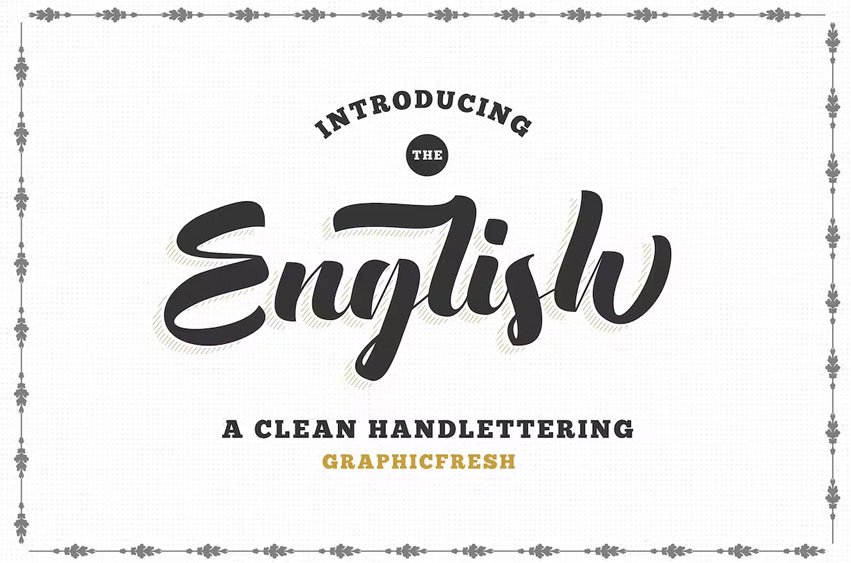
The English Font Vintage Lettering. English is a vintage lettering font with Clean versions as well. it’s perfect for logos, name card, magazine layouts, invitations, headers, or even large-scale artwork.
This typeface is comes in uppercase, lowercase, punctuations, symbols & numerals, stylistic set alternate.
- Uppercase -Lowercase
- Punctuation and Number
- Stylistic Set Alternate